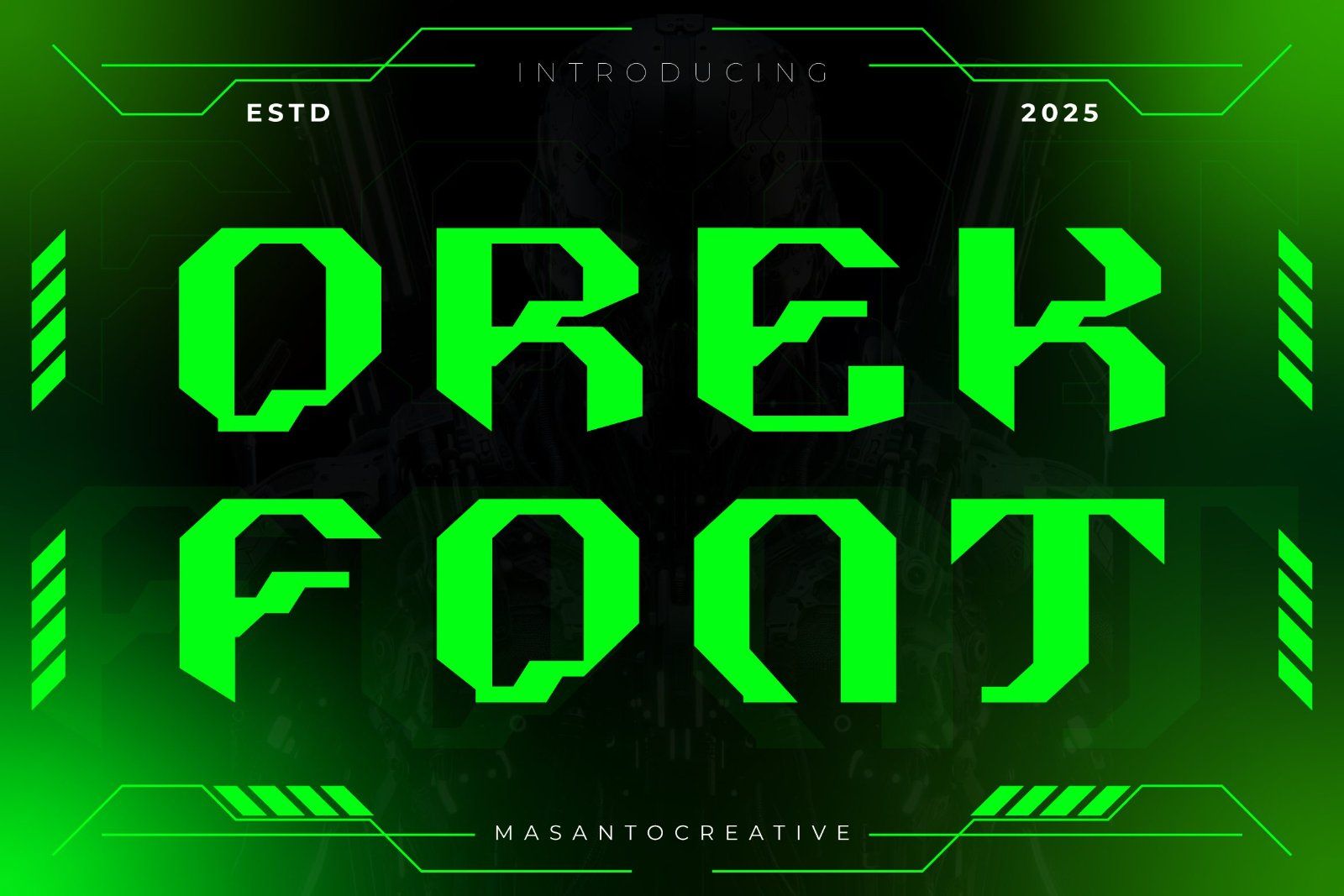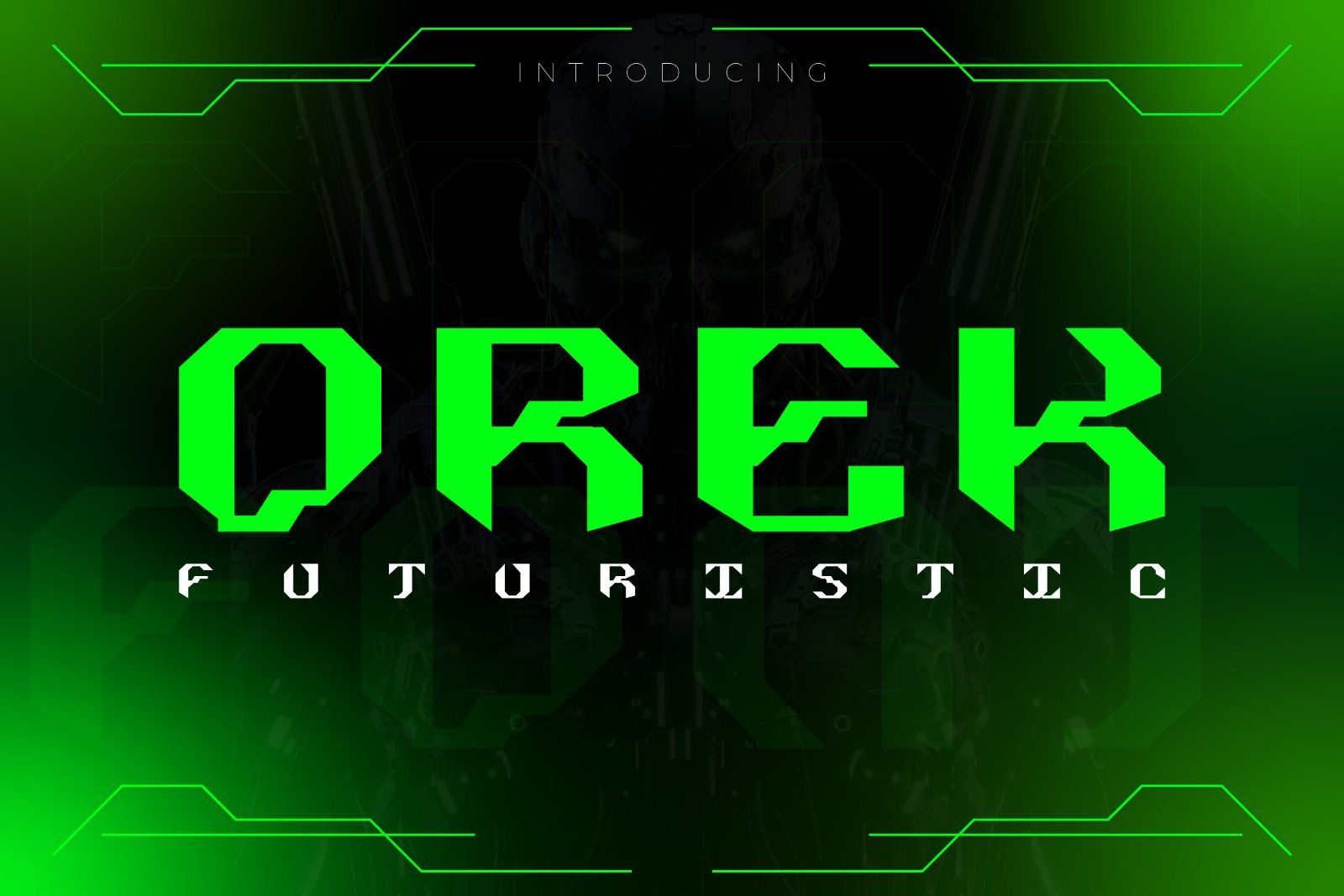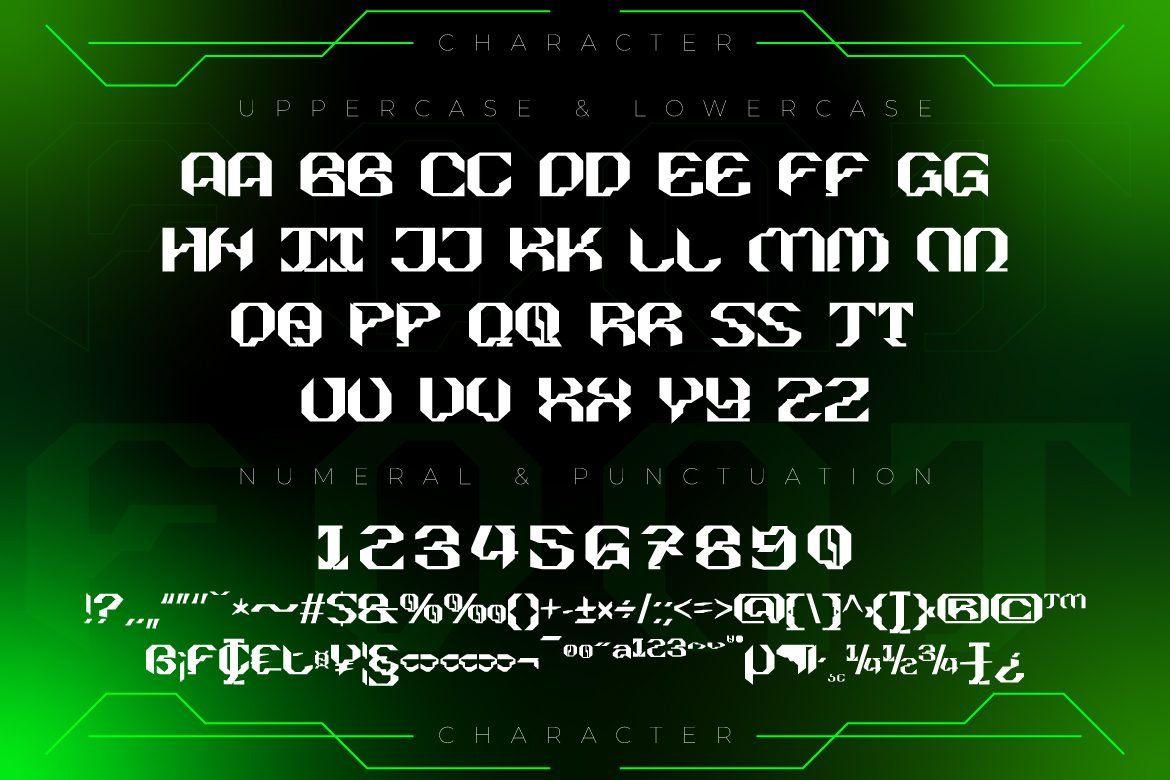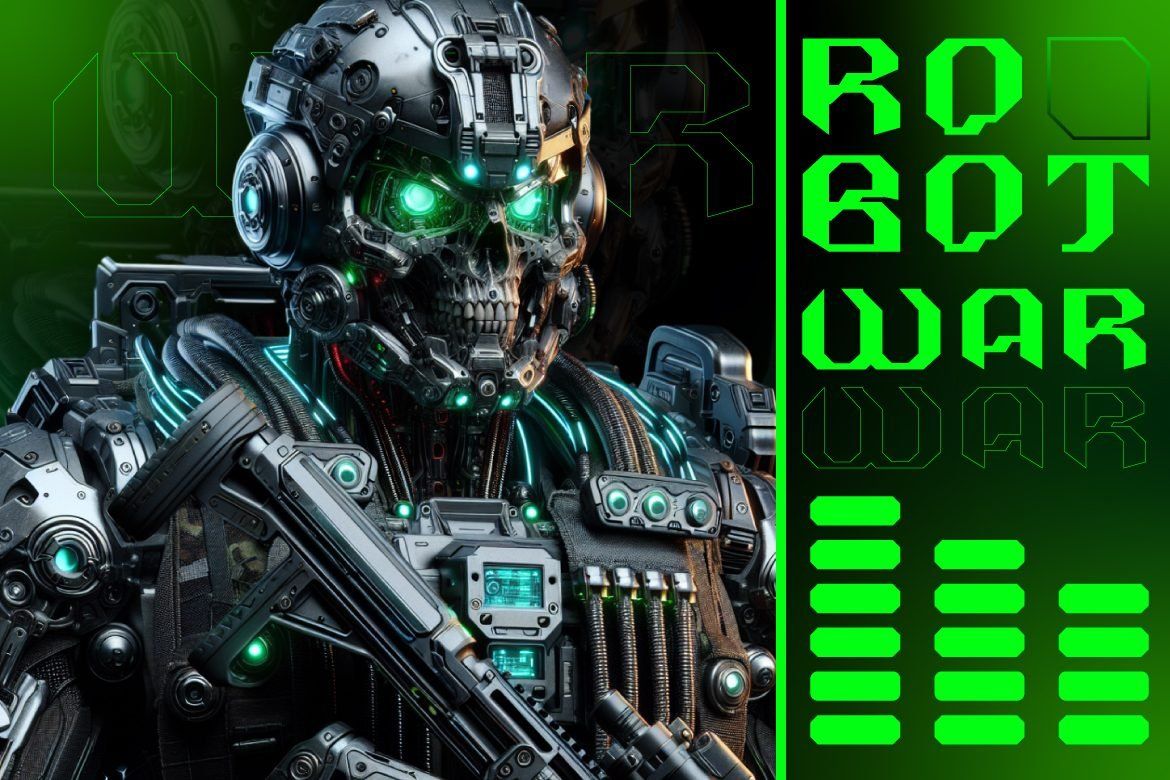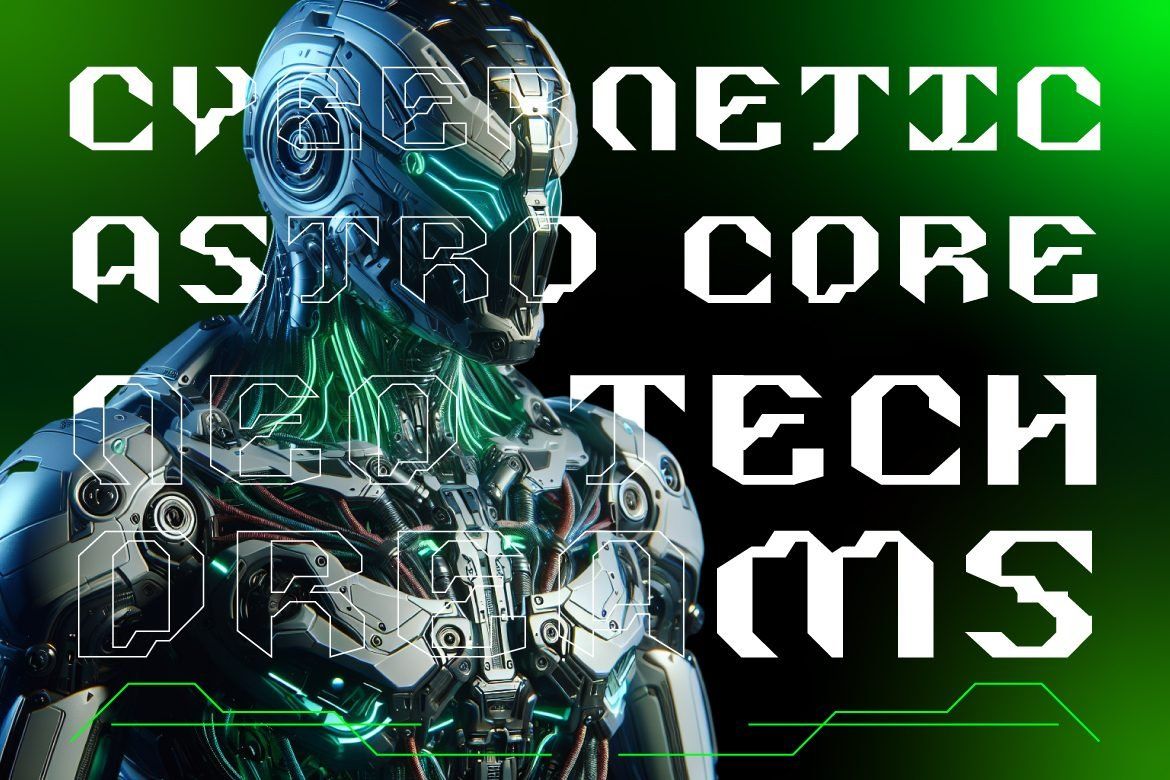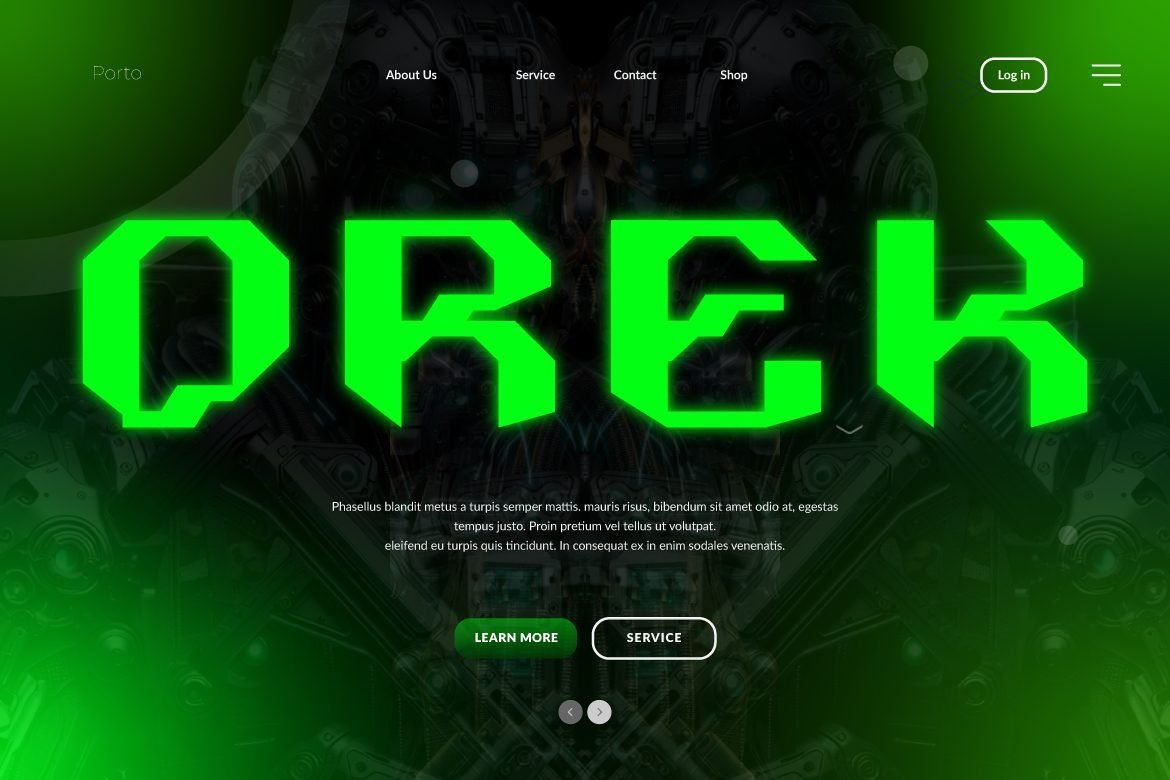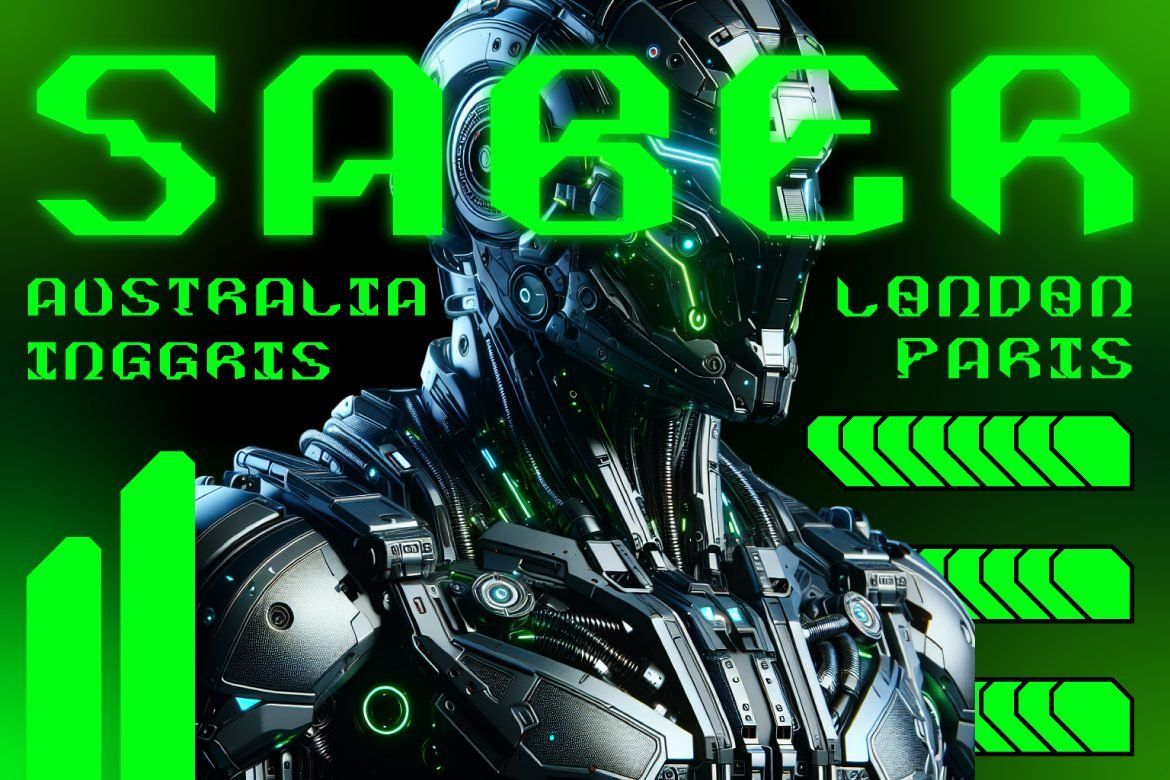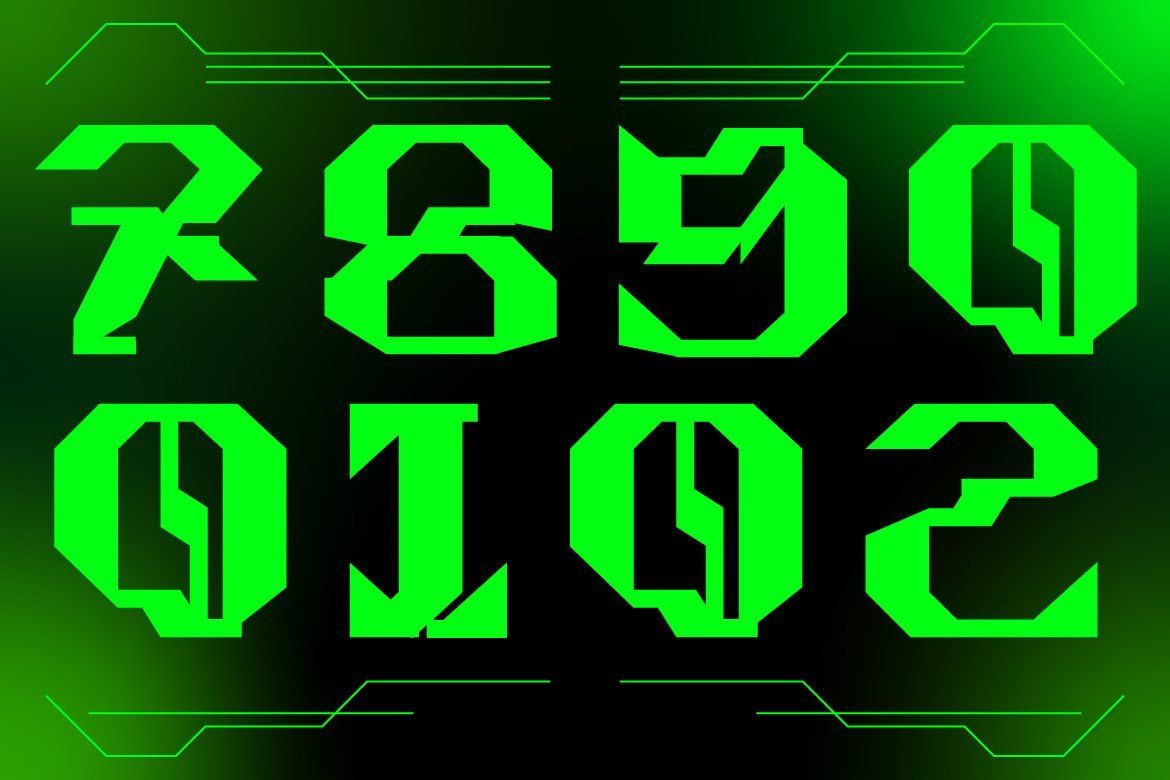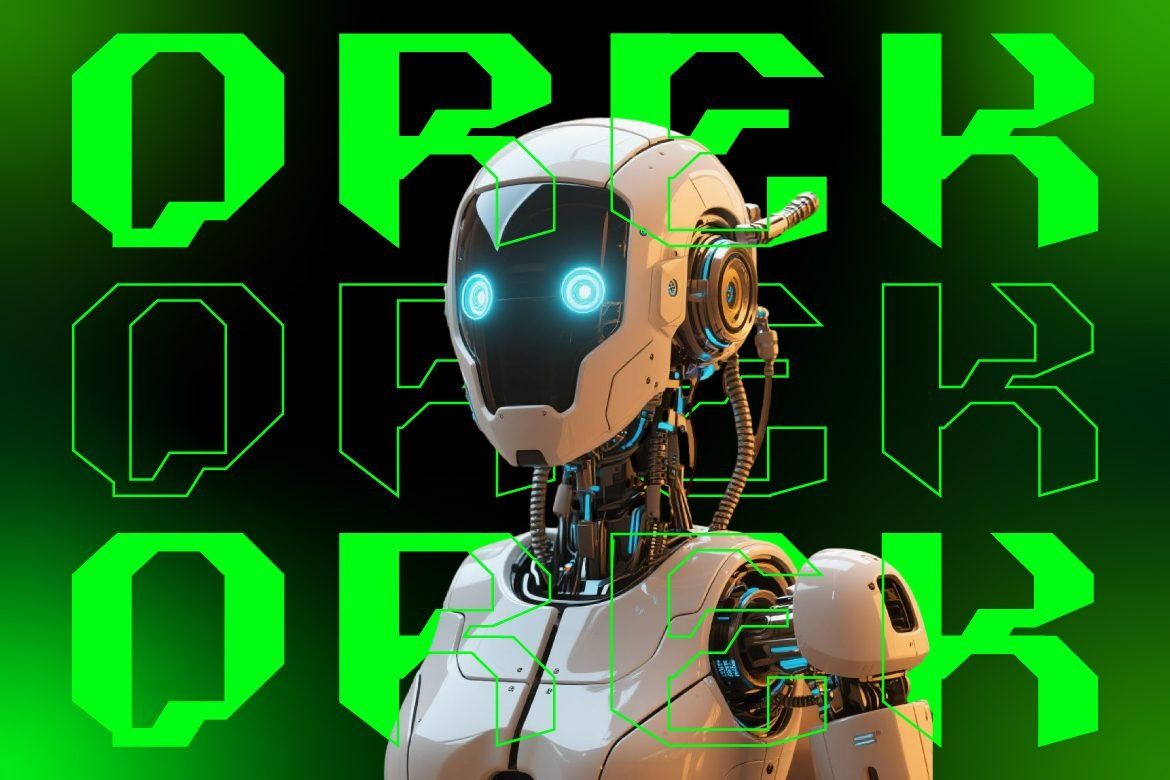
Futuristic Display Font is a modern sci-fi typeface designed to bring a sleek, high-tech, and futuristic look to your projects. Perfect for sci-fi movie posters, game UI, tech branding, album covers, and other creative digital works.
This font features bold letterforms, sharp angles, and geometric details, making every word stand out with a cutting-edge vibe. Ideal for headlines, logos, titles, and typography elements that need a modern futuristic touch.